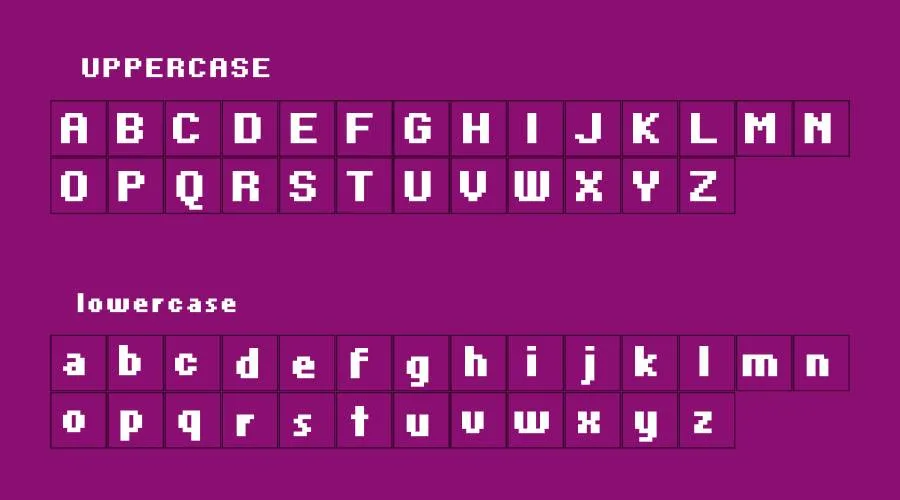
Fff Urban Font
About FFF Urban Font
Altsys designed FFF Urban Font it is a unique style that has square shape characters with straight stripes. They are available as OpenType or TrueType files. There are 252 characters in this single style with numerous language assistance.
In other words, which could be accessed without difficulty by designers around the world. To create a unique and eye-catching design, you should use this typeface in combination with super bling font.
This section contains a preview where we choose special characters, 26 alphabetic letters, and numbering 0-10 to evaluate the typeface. Because its look is extremely amazing. It is extensively utilized to create beautiful backgrounds.
The excellent typeface may be used to create beautiful poster layouts, booklet designs, websites, and brand designs. This typeface is appropriate for many company logos, theme layouts, and blogging layout styles.
It is ideal to use when creating interesting web design ideas, pamphlet designs, etc. This typeface may be used to create a stunning design for your next project. This typeface is very similar to the regal font.
It is appropriate for marketing project purposes. Film banners can be made, with titles. The package deal covers everything in every scenario, so it’s a complete package.
It is a stunning typeface that is appropriate for many high-quality card designs. Marketing designs, posters, and symbols can be used with this beautiful typeface. Whether you are designing captions, logos, or other display items, this typeface will serve you well.
What type of FFF Urban font?
This fun font belongs to the category of techno fonts. There are 252 characters in this single style with numerous language assistance.